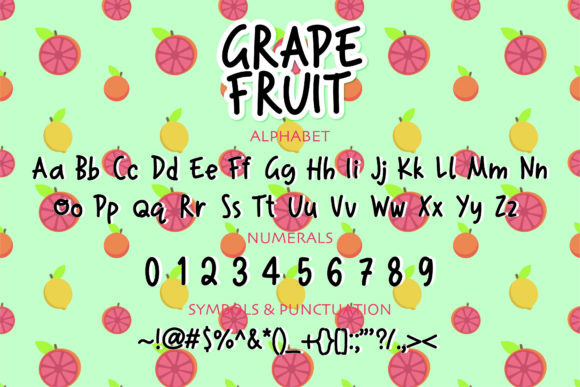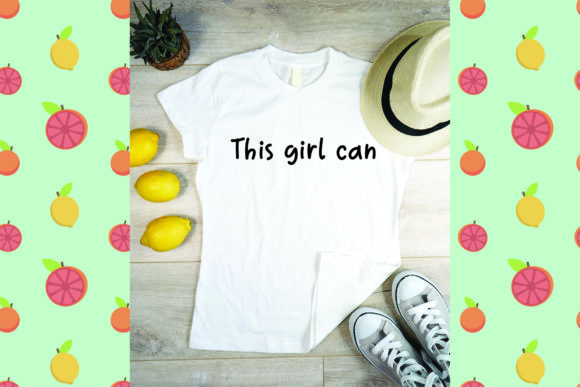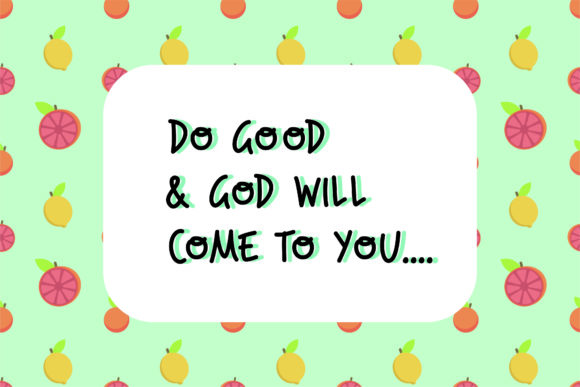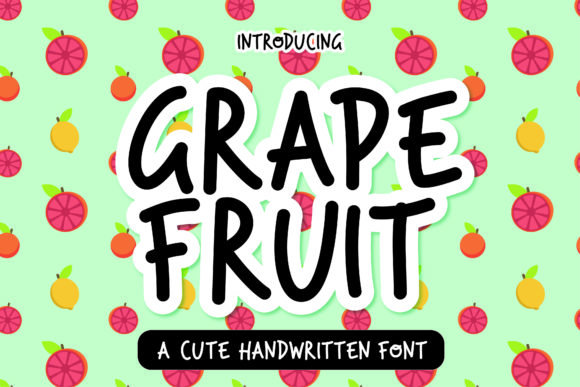
Introduction to Grape Fruit Font
Grape Fruit is a childish and friendly display font that conveys impeccable friendliness.
Key Features of Grape Fruit Font